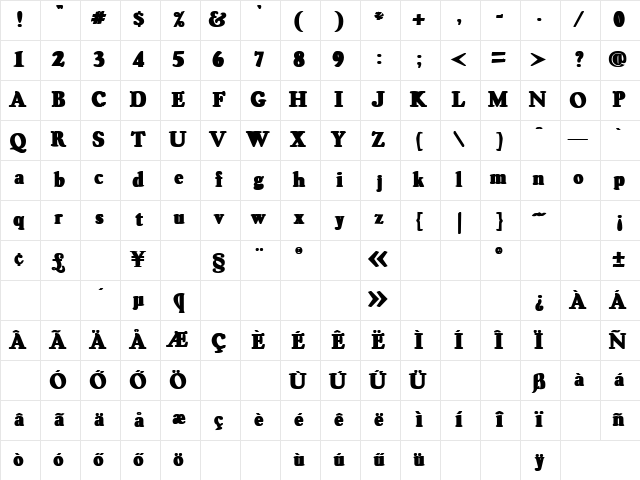
H_ASSAS1 Regular
Design Context for H_ASSAS1
H_ASSAS1 is a composed and adaptable typeface that performs quietly and consistently across a wide range of design contexts.